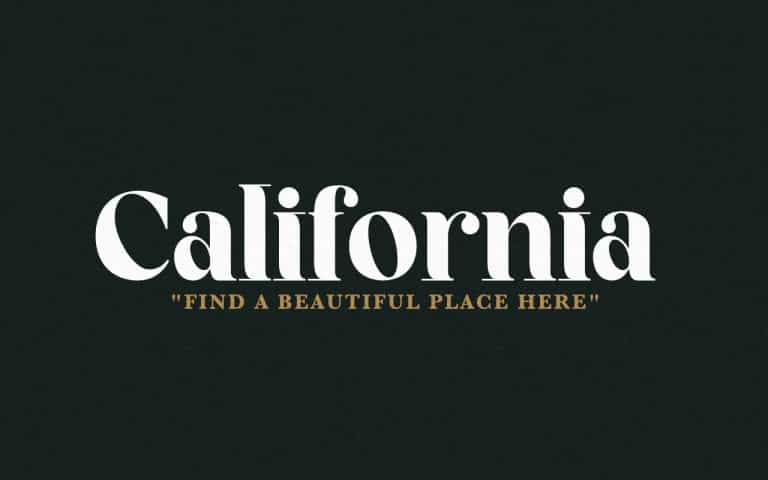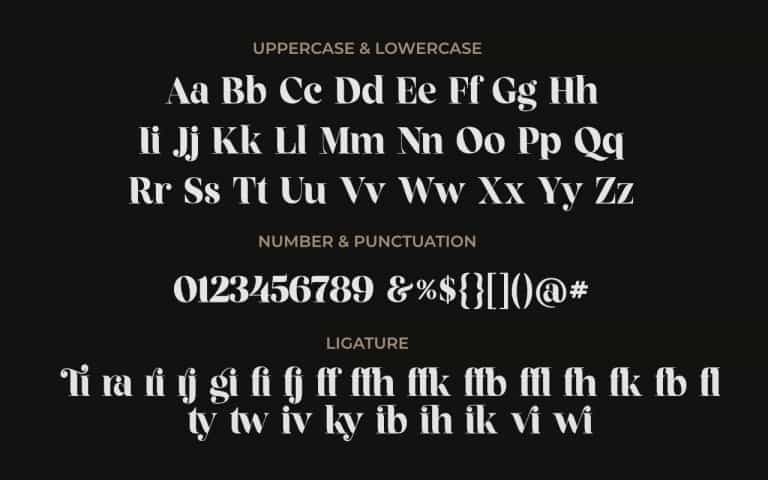
Discover Fragille Typeface, part of the Serif Display Basic Personal collection—a versatile and unique font perfect for adding a personal touch to your projects. Download it for free and enjoy crafting designs with style, from invitations to social media posts. This font is available exclusively for personal use, giving you the freedom to create without limits. Unlock your creativity with Fragille Typeface today!
The Fragille font is ideal for making logos for different companies and beautiful magazines, quotes, invitations, cards, and brands. With its boldly contrasting lines it has been making news headlines more bold. It is hard to put an age on Fragile and with her perfect curves she has that eternal beauty.